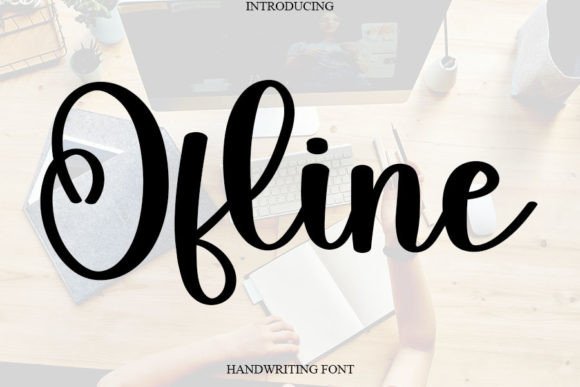
Introducing Ofline Font: A Handcrafted Journey Into Typographical Elegance
In a world saturated with digital monotony, where uniformity reigns supreme, Ofline Font emerges as a beacon of individuality, a testament to the enduring power of handwritten elegance. This exquisite script, painstakingly crafted by the artisans at Harlek Studio, invites you to embark on a typographical odyssey, a voyage of visual delight where each letter tells a tale, and every word becomes a work of art.
Ofline Font: A Symphony of Serifs and Swirls
Ofline Font is a symphony of serifs and swirls, a harmonious blend of classic beauty and contemporary flair. Its characters, like delicate brushstrokes frozen in time, possess an inherent grace that elevates any design project to new heights of sophistication. Whether you're crafting an email signature that exudes professionalism, designing a wedding invitation that radiates romance, or creating a social media post that demands attention, Ofline Font is the perfect choice.
Experience the Magic of Ofline Font
With Ofline Font, you'll discover the transformative power of typography. This remarkable font has the ability to infuse your designs with a touch of magic, a sprinkle of enchantment that captivates audiences and leaves them spellbound. Its flowing lines and graceful curves add a touch of whimsy to any project, while its elegant serifs lend an air of authority and timeless appeal.
Unleash Your Creativity with Ofline Font
Ofline Font is more than just a font; it's a gateway to a world of boundless creativity. Whether you're a seasoned designer or just starting out, this versatile font will become your trusted companion, lending its charm to a myriad of projects. From logos and branding to website designs and marketing materials, Ofline Font is the perfect choice for those who seek to make a lasting impression.
Embrace the Beauty of Ofline Font
Ofline Font is an experience, a journey into the realm of typographical artistry. With its enchanting characters and captivating style, this font has the power to transform your designs into works of art. Embrace the beauty of Ofline Font and embark on a creative adventure that will leave you breathless.